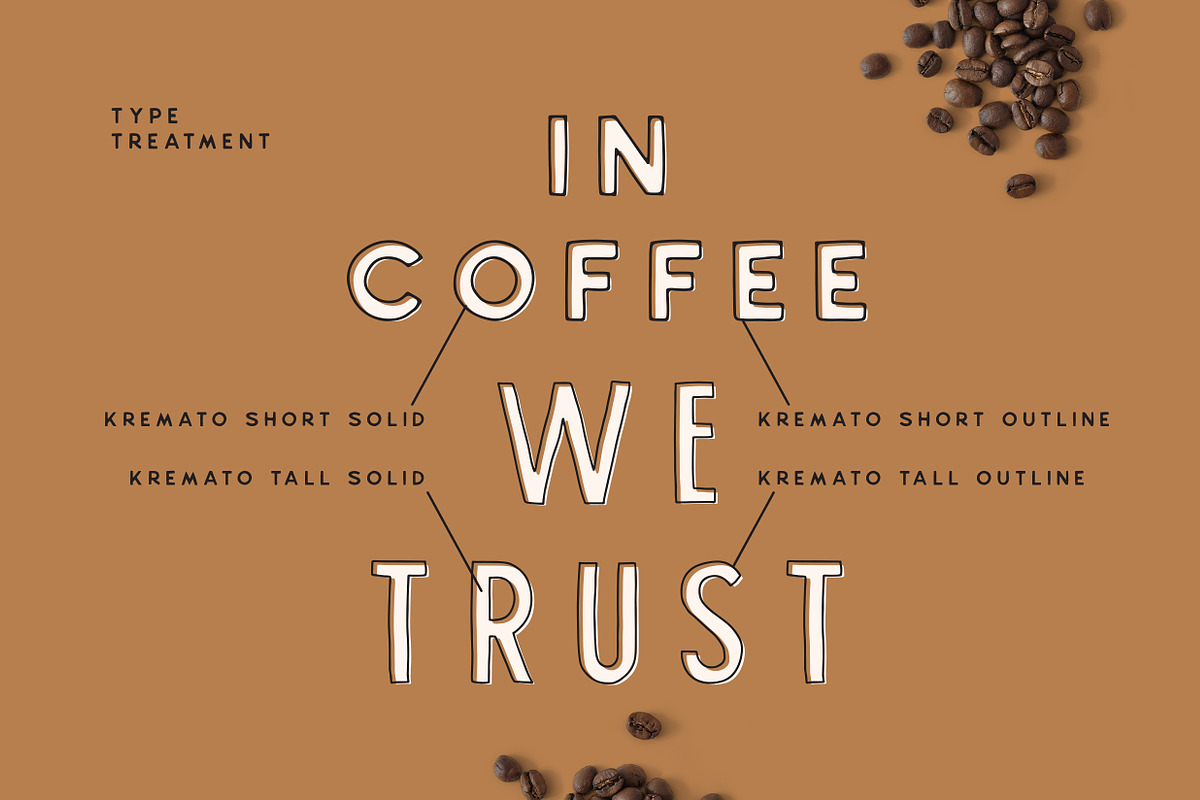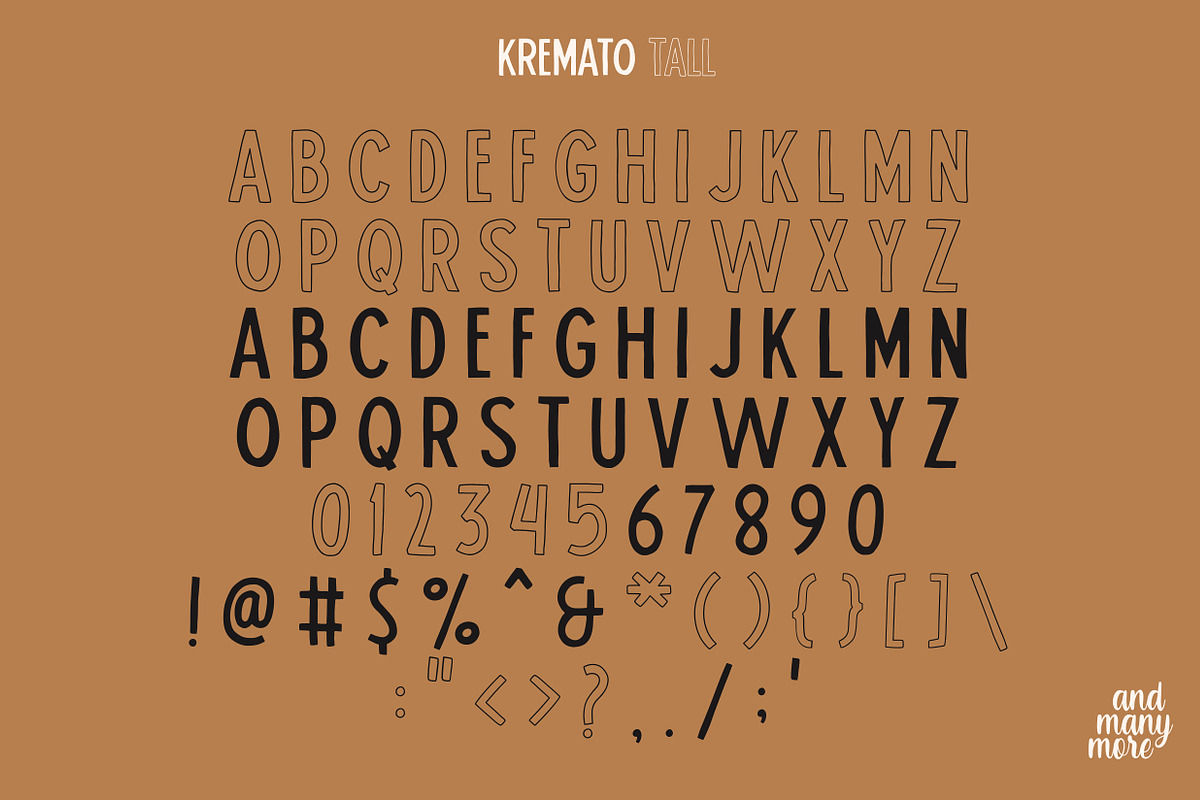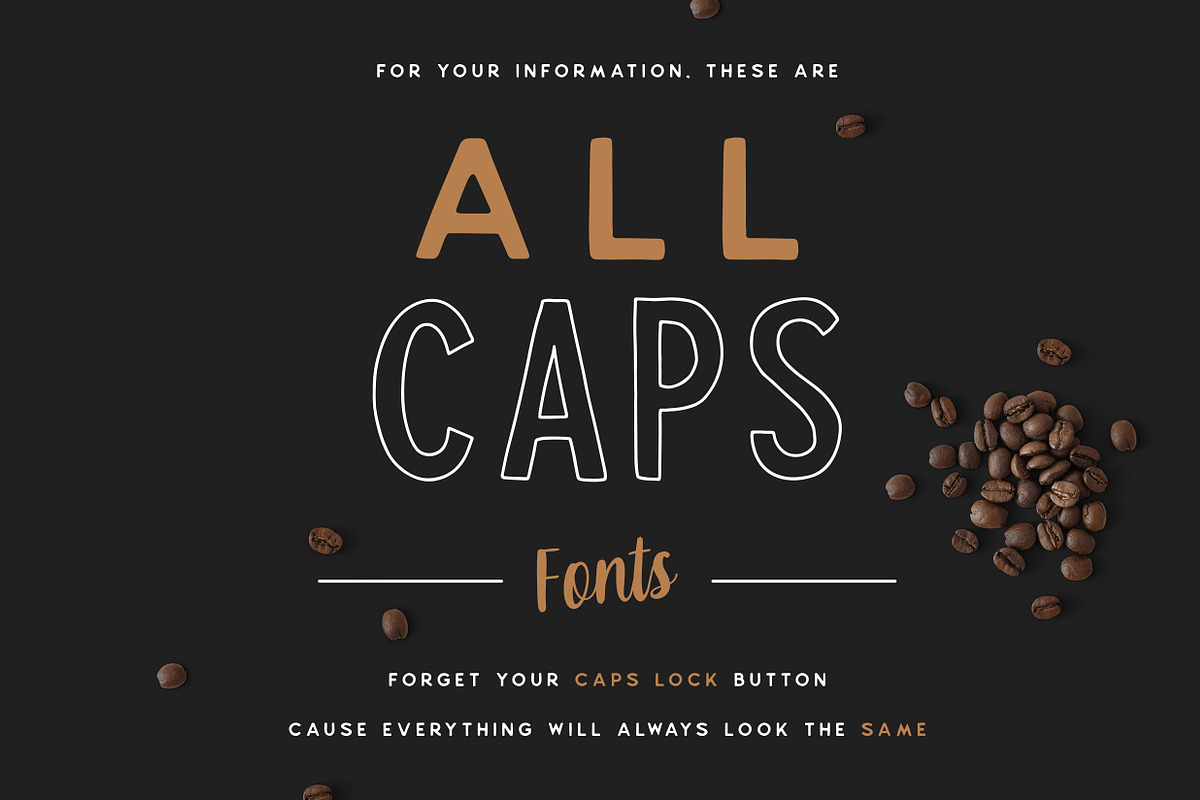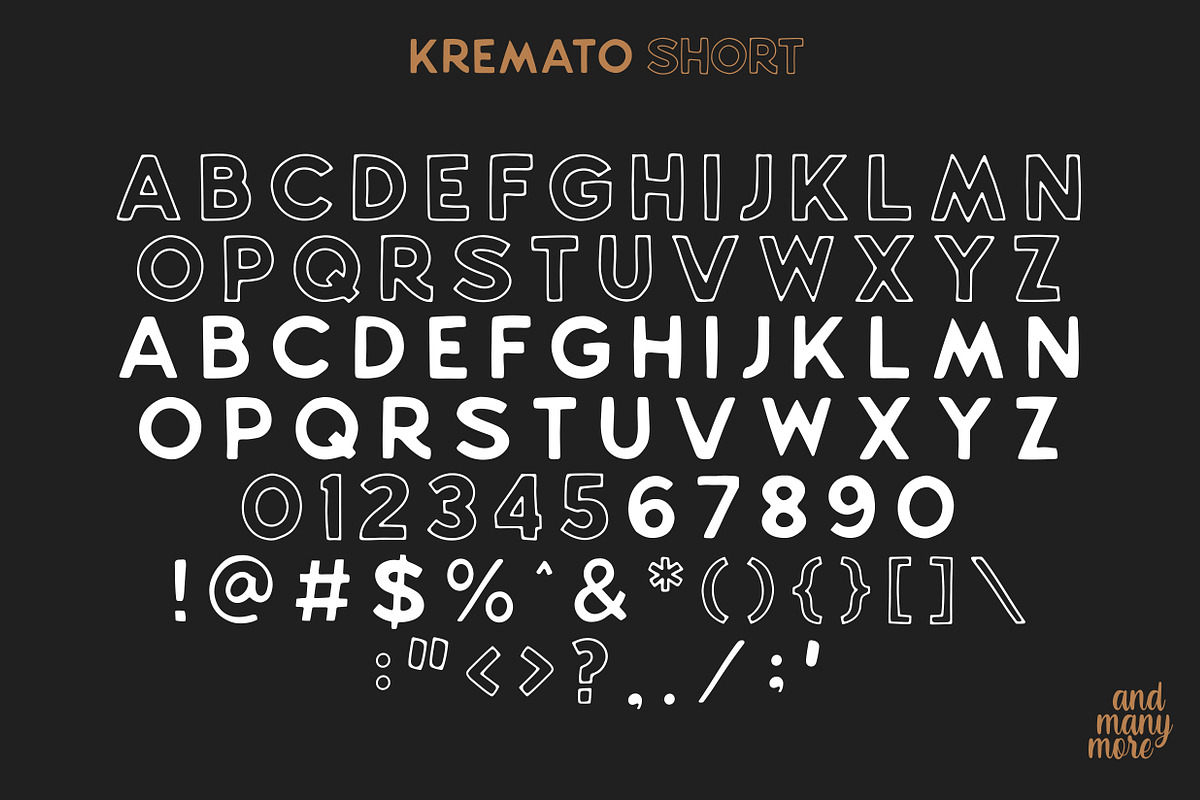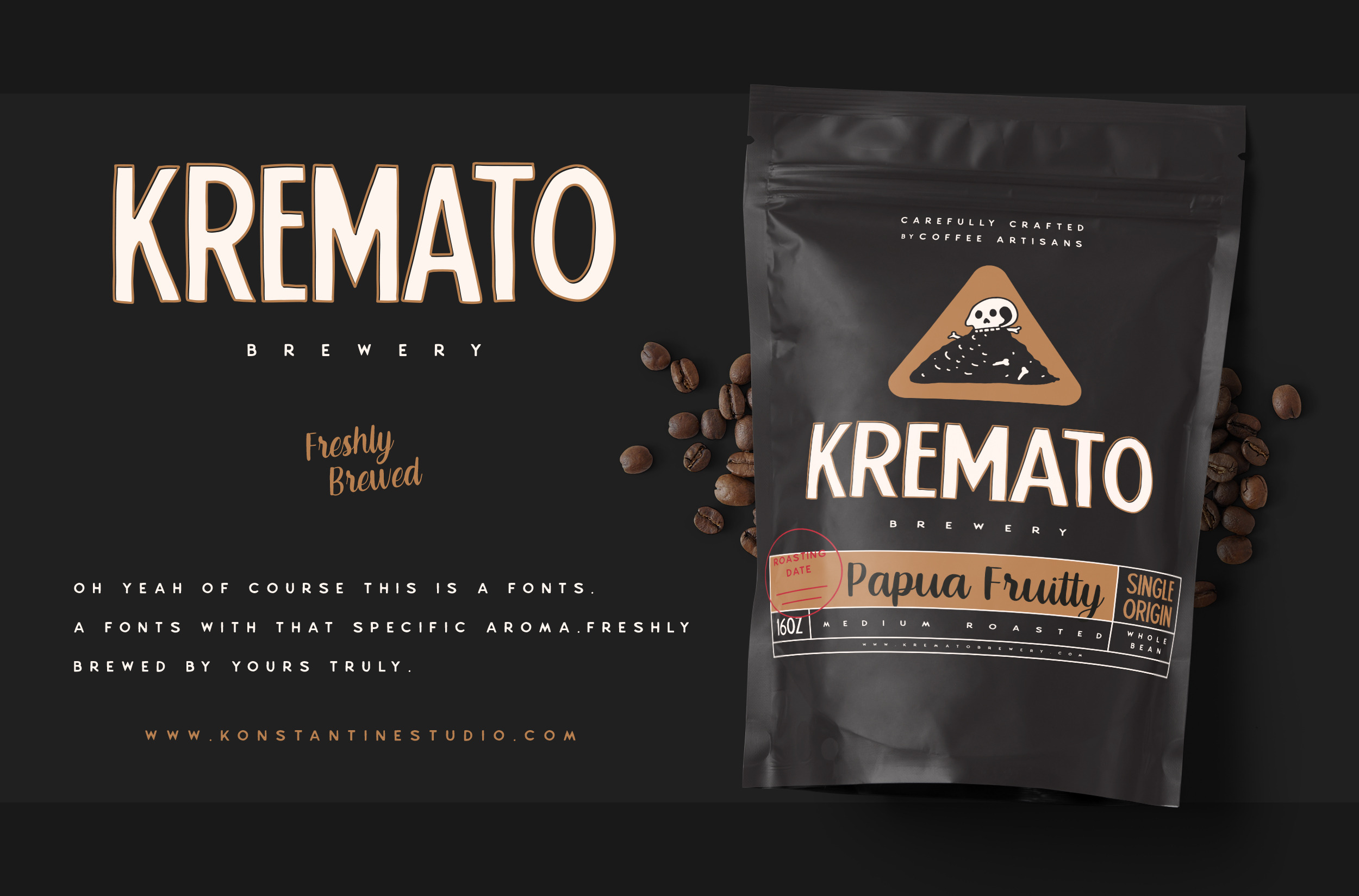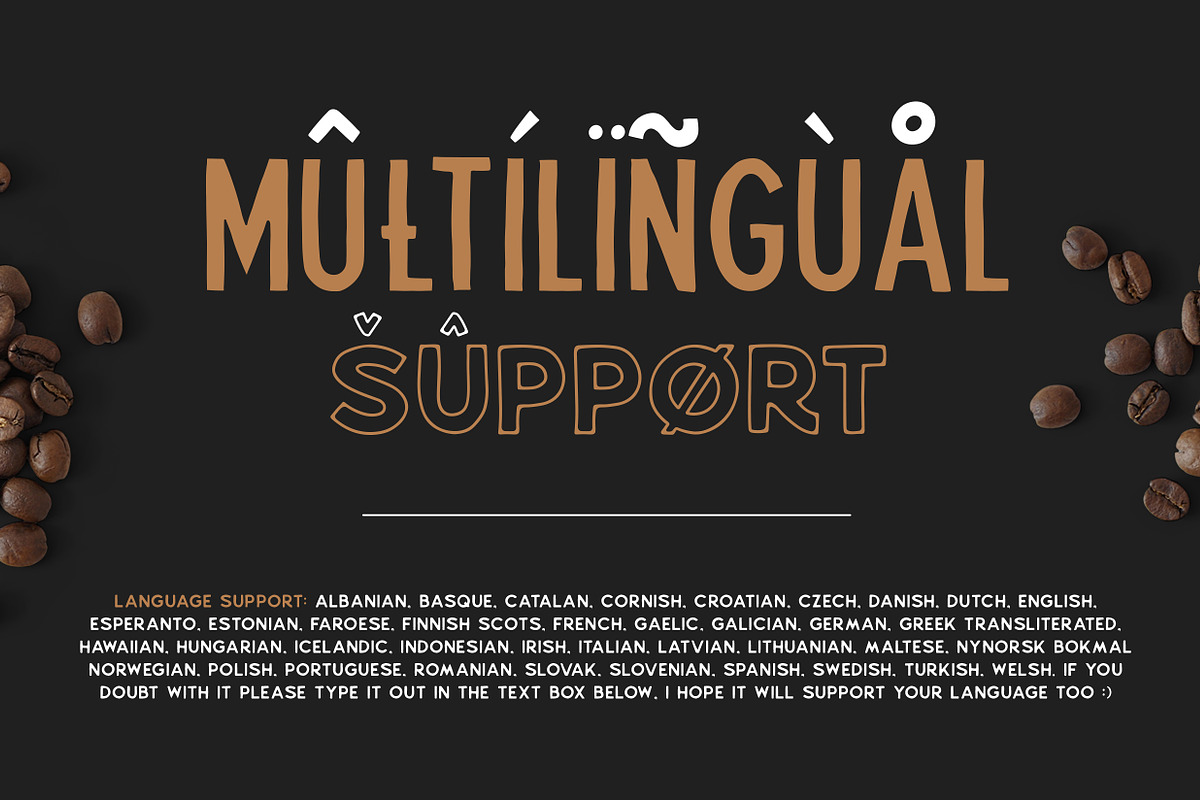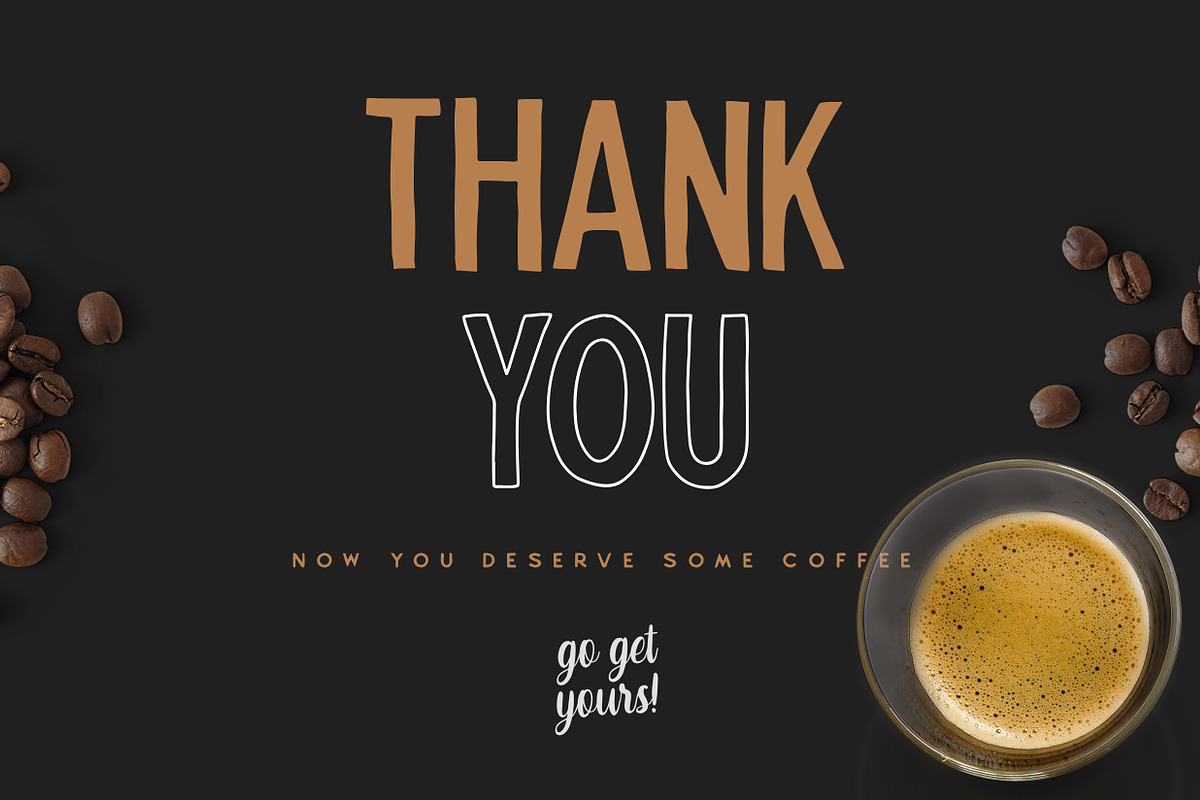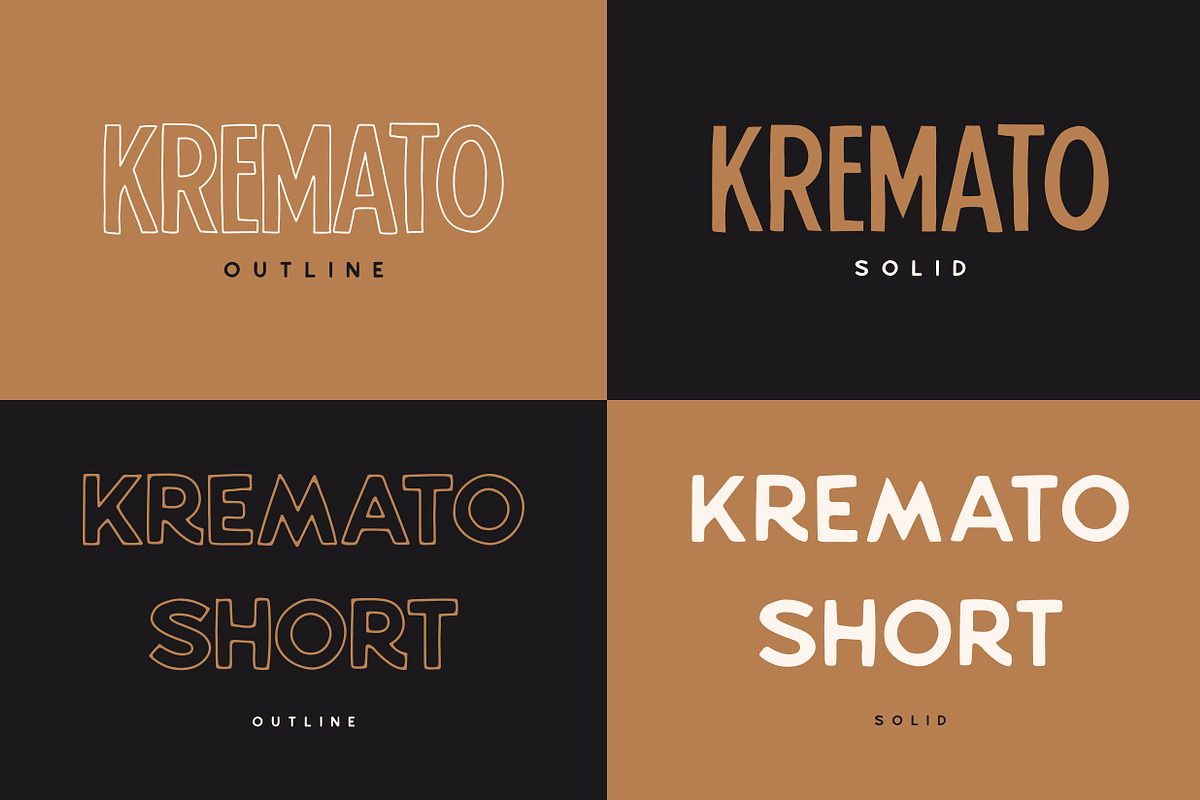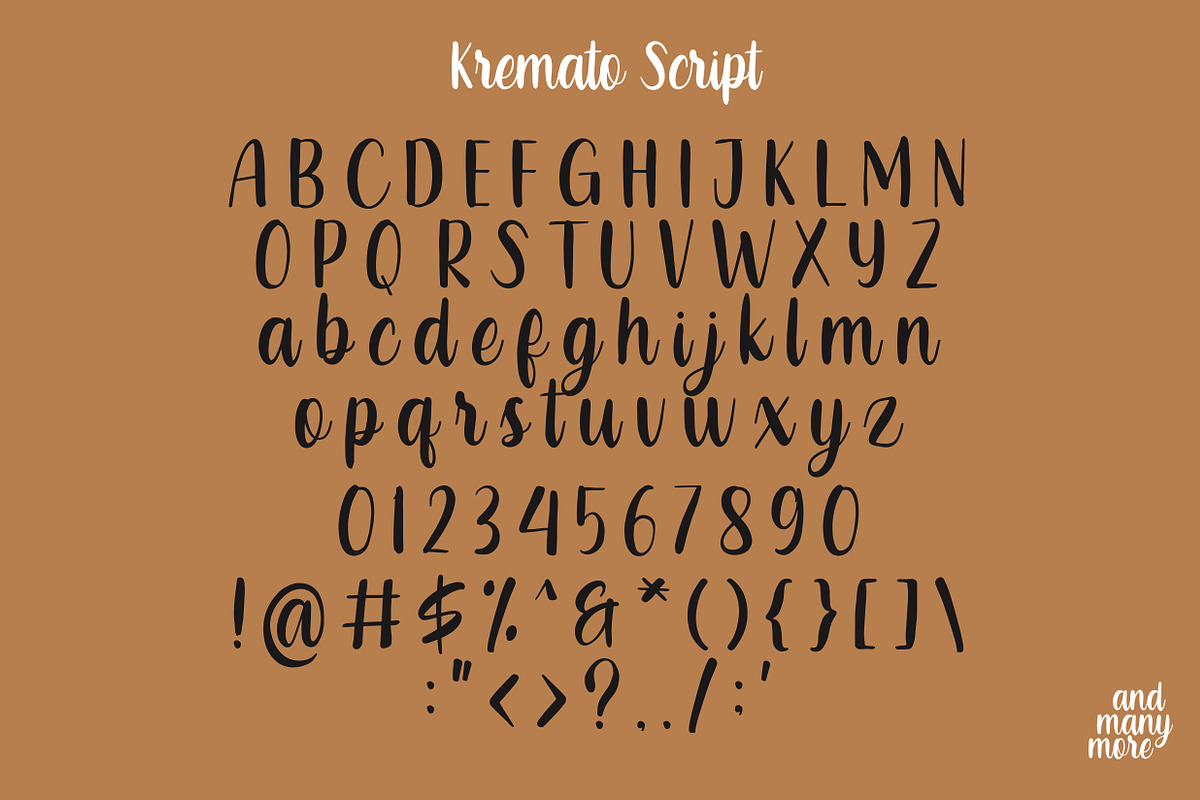
Kremato - Natural Hand Drawn Fonts
Everybody deserves a good coffee. To boost the mood and brighten the day. That's why we came up with a homebrewed coffee, in the form of fonts.
Kremato is a pack of hand-drawn fonts, inspired by the trendy coffee branding nowadays. Coffee evolves into an artisan creation from the human hands, so that's why we brew this font based on our authentic natural hand stroke.
Perfectly fit for coffee branding, homemade snacks, bakery, cafe decoration, menu, food and beverages, anytime you need an organic touch to your visuals, Kremato is a one way to go.
C O N T E N T S
- Kremato Tall Solid
- Kremato Tall Outline
- Kremato Short Solid
- Kremato Short Outline
- Kremato Script